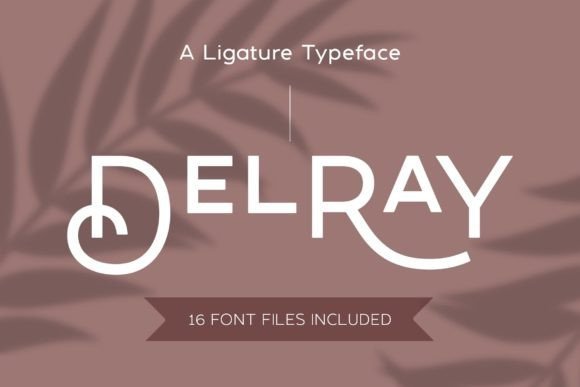
Unlocking Elegance: Discover the Delray Font
As designers, we’ve all been there – staring at a blank canvas, trying to bring our vision to life. The perfect font can be the difference between a good design and a great one. That’s where the Delray Font comes in – a sophisticated sans serif typeface designed to elevate your work.
This versatile font features 7 weights, plus italics and a variable font, making it the perfect addition to any project. With its ligature-filled design and multilingual characters, the Delray Font is more than just a pretty face – it’s a valuable tool for designers looking to add refinement and style to their work.
Delray Font Key Features
- Font Family: Delray is a modern sans-serif font family.
- Unique Characteristics: Delray features a clean, geometric design with subtle rounded corners, making it suitable for digital and print media.
- Character Set: Includes a wide range of characters, including Latin, Greek, and Cyrillic alphabets, as well as punctuation and symbols.
Delray Font Review
Overall, I think Delray is a decent font with some nice qualities. ✨ Its rounded edges and gentle curves give it a friendly, approachable feel that could work well in various contexts, from children’s books to branding materials. The font also has a nice weight range, making it suitable for both large-scale headings and smaller body text.
Here are some specific things that work well:
- ✨ Friendly and approachable feel, suitable for various contexts
- ✨ Nice weight range for flexibility in use
- ✨ Clean and legible design
However, I do have some concerns:
- ⚠️ Limited character set and language support
- ⚠️ Not ideal for highly technical or formal content, as it may come across as too casual
- ⚠️ Some users may find the rounded edges and curves too soft or unprofessional
Overall, Delray is a solid choice for projects that require a friendly, approachable tone, but it may not be the best fit for more formal or technical content. With some additional character set support and a more versatile design, I think it could be even more effective.
Tips for Getting the Most Out of Delray Font
Use the Delray font for headings, titles, and body text to create a cohesive and stylish design.
Experiment with different font sizes and colors to create visual interest and hierarchy.
Combine the Delray font with other fonts and design elements to create a unique and eye-catching design.
The Delray font is suitable for:
Restaurant menus and branding
Event invitations and promotional materials
Branding and marketing materials
Alternatives to Delray Font
Montserrat Font is a sans-serif font designed by Julieta Ulanovsky. It is best used for headings, titles, and body text in modern and urban designs. Montserrat Font is similar to Delray Font in its clean and minimalist aesthetic, but it has a more geometric and industrial feel.
2. Inter Font
Inter Font is a sans-serif font designed by Rasmus Andersson. It is best used for body text, titles, and headings in digital products, such as websites and apps. Inter Font is similar to Delray Font in its clean and modern aesthetic, but it has a more refined and sophisticated feel.
3. Public Sans Font
Public Sans Font is a sans-serif font designed by Caroline Hadilaksono and Mike VanderMeer. It is best used for body text, titles, and headings in government and public institutions. Public Sans Font is similar to Delray Font in its clean and modern aesthetic, but it has a more formal and professional feel.
Lato Font is a sans-serif font designed by Łukasz Dziedzic. It is best used for body text, titles, and headings in creative and modern designs. Lato Font is similar to Delray Font in its clean and minimalist aesthetic, but it has a more elegant and sophisticated feel.
Delray Font Creative Projects
Retro Cafe Menu Board
Create a unique and eye-catching menu board for a retro cafe using the Delray Font. This project combines the nostalgic feel of the font with a modern design aesthetic.